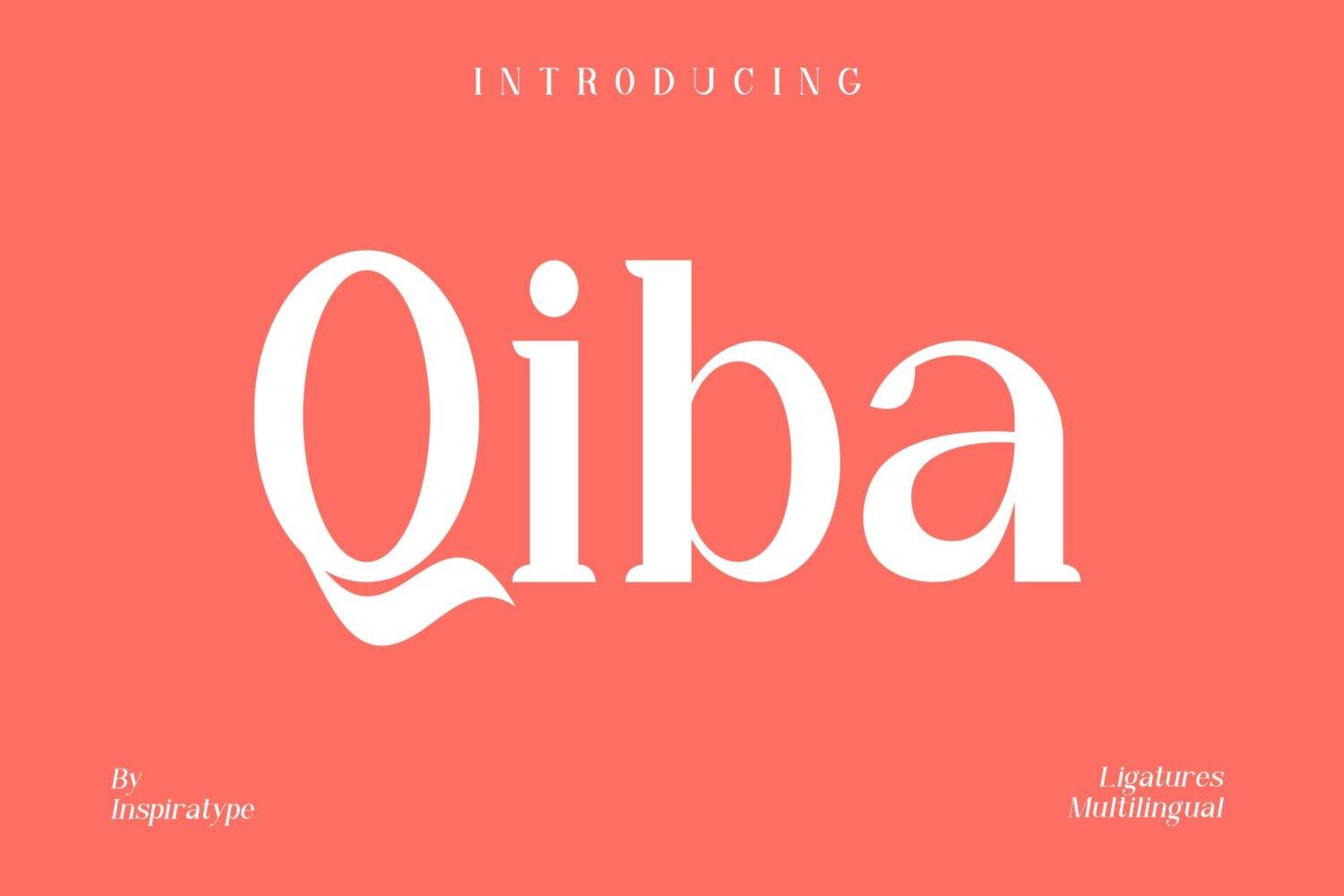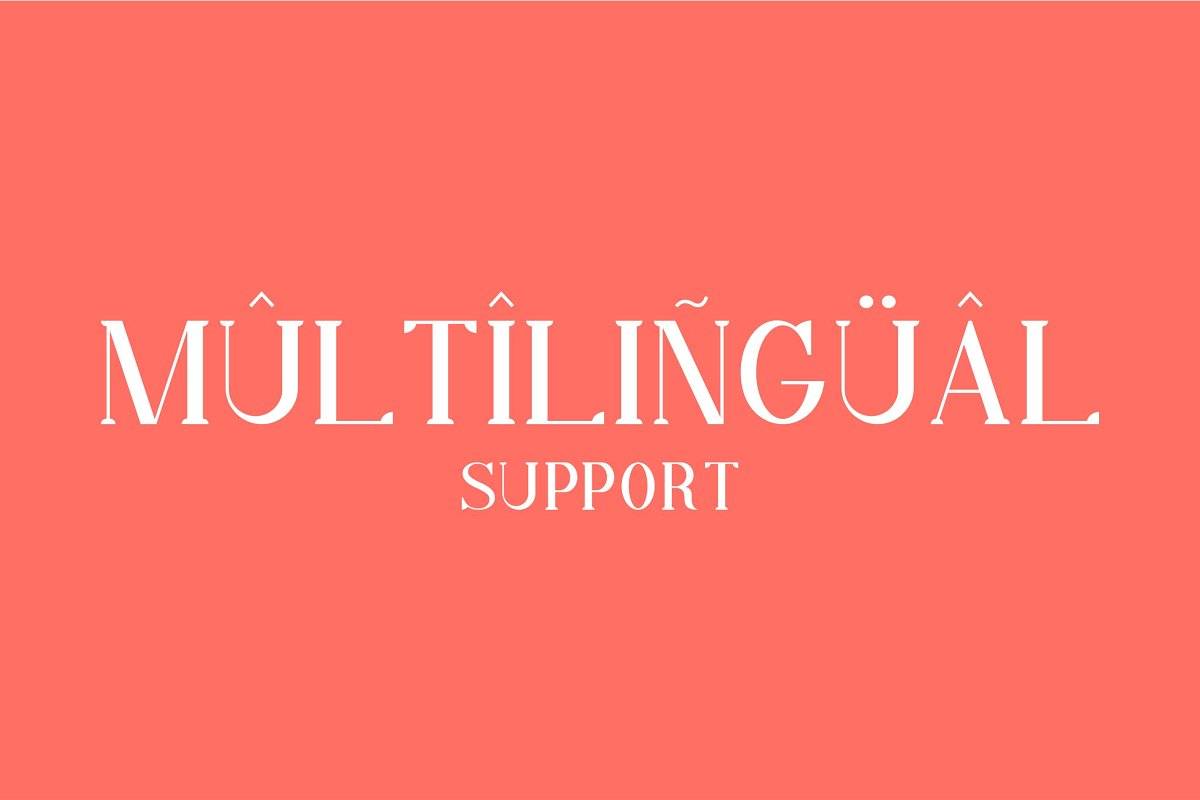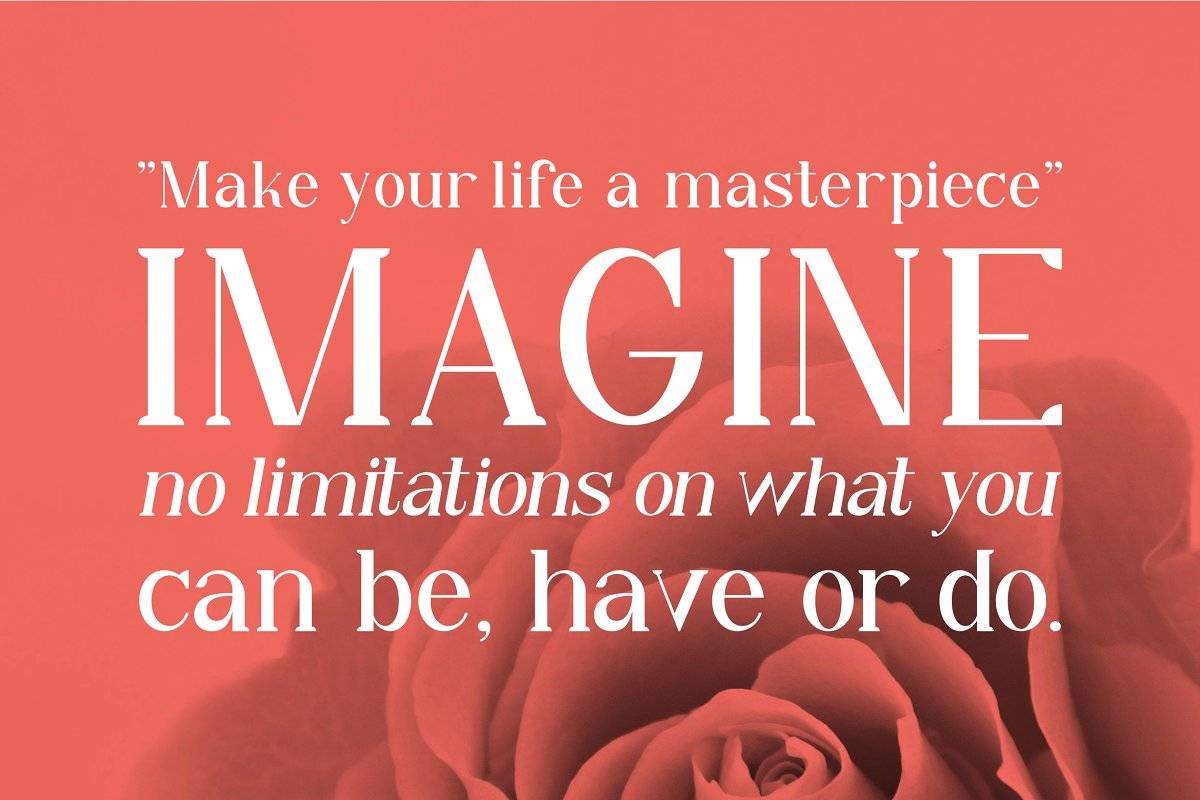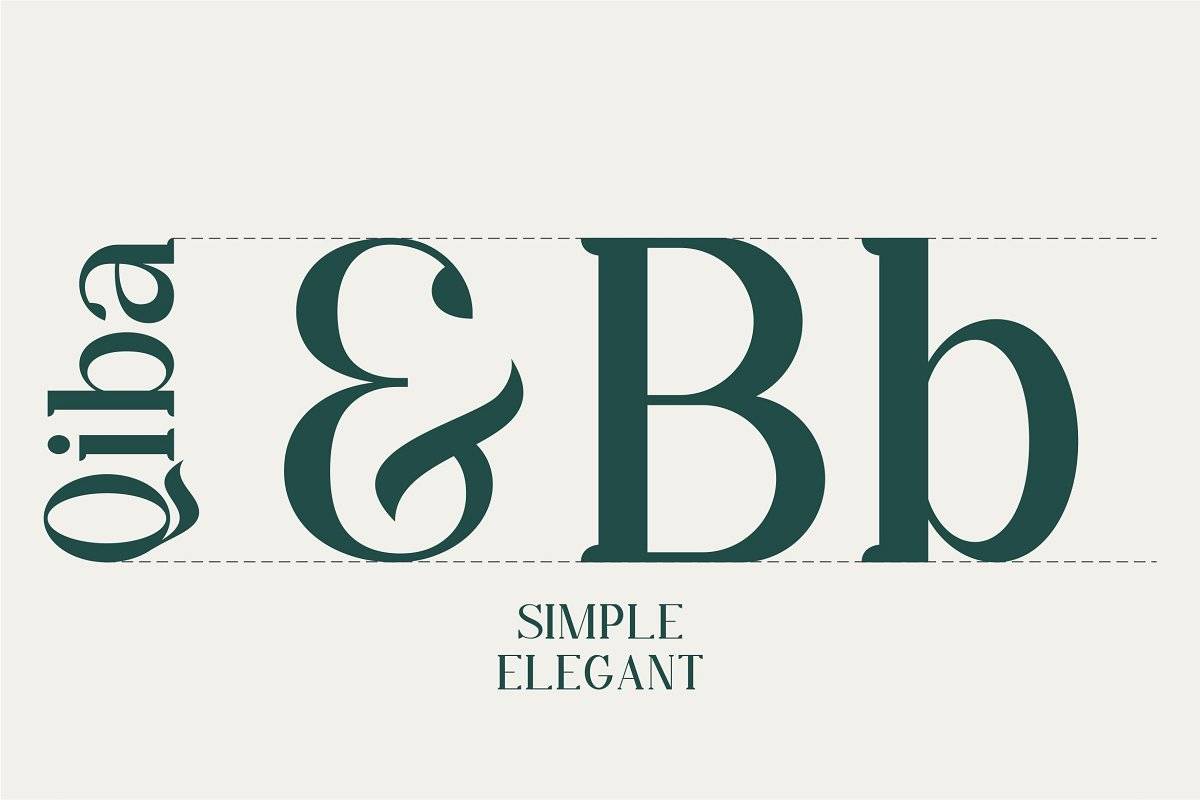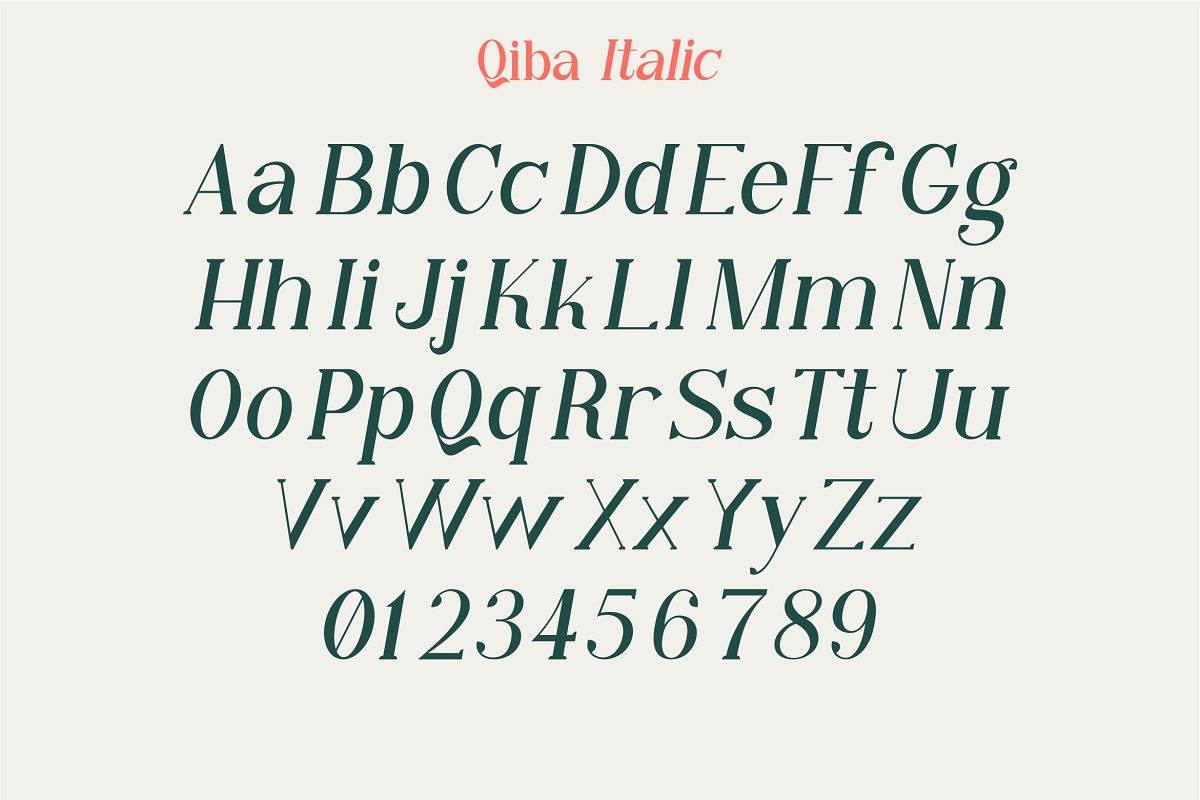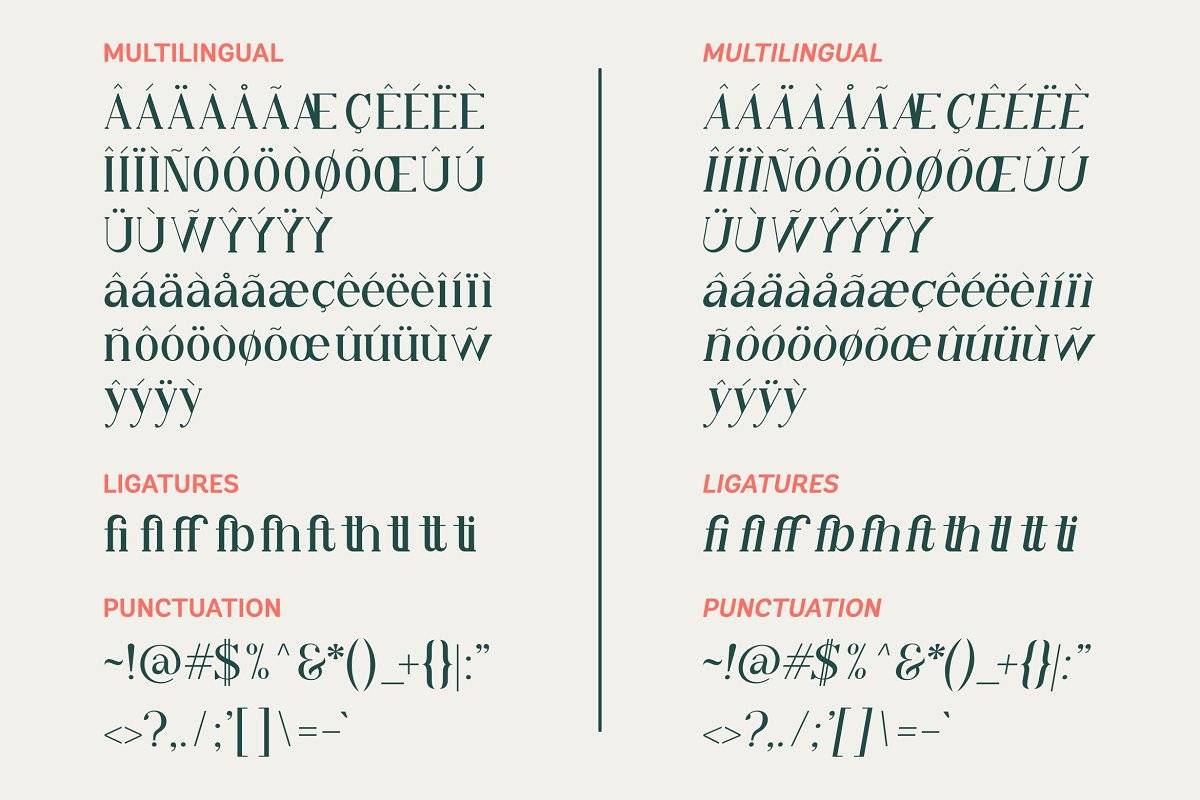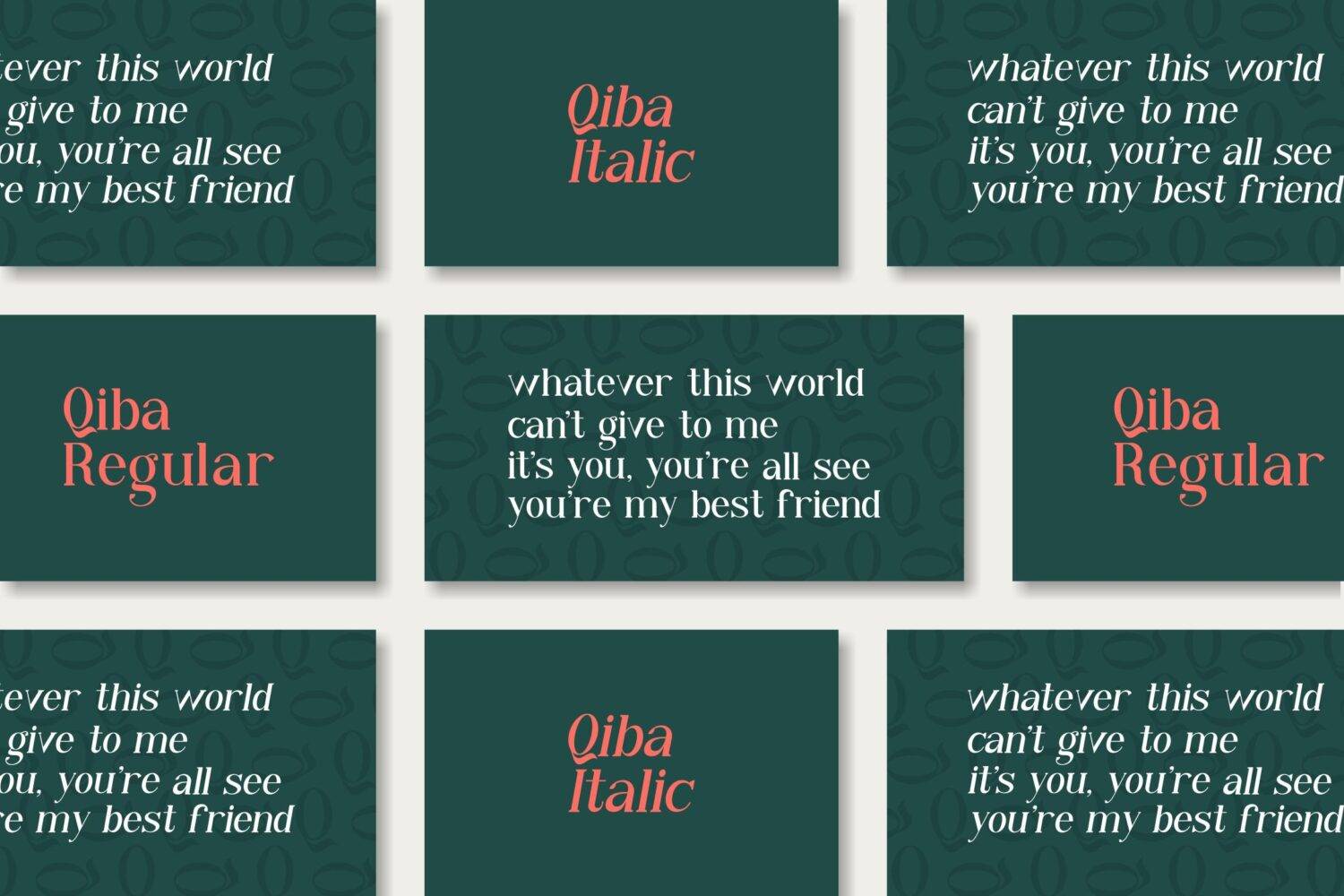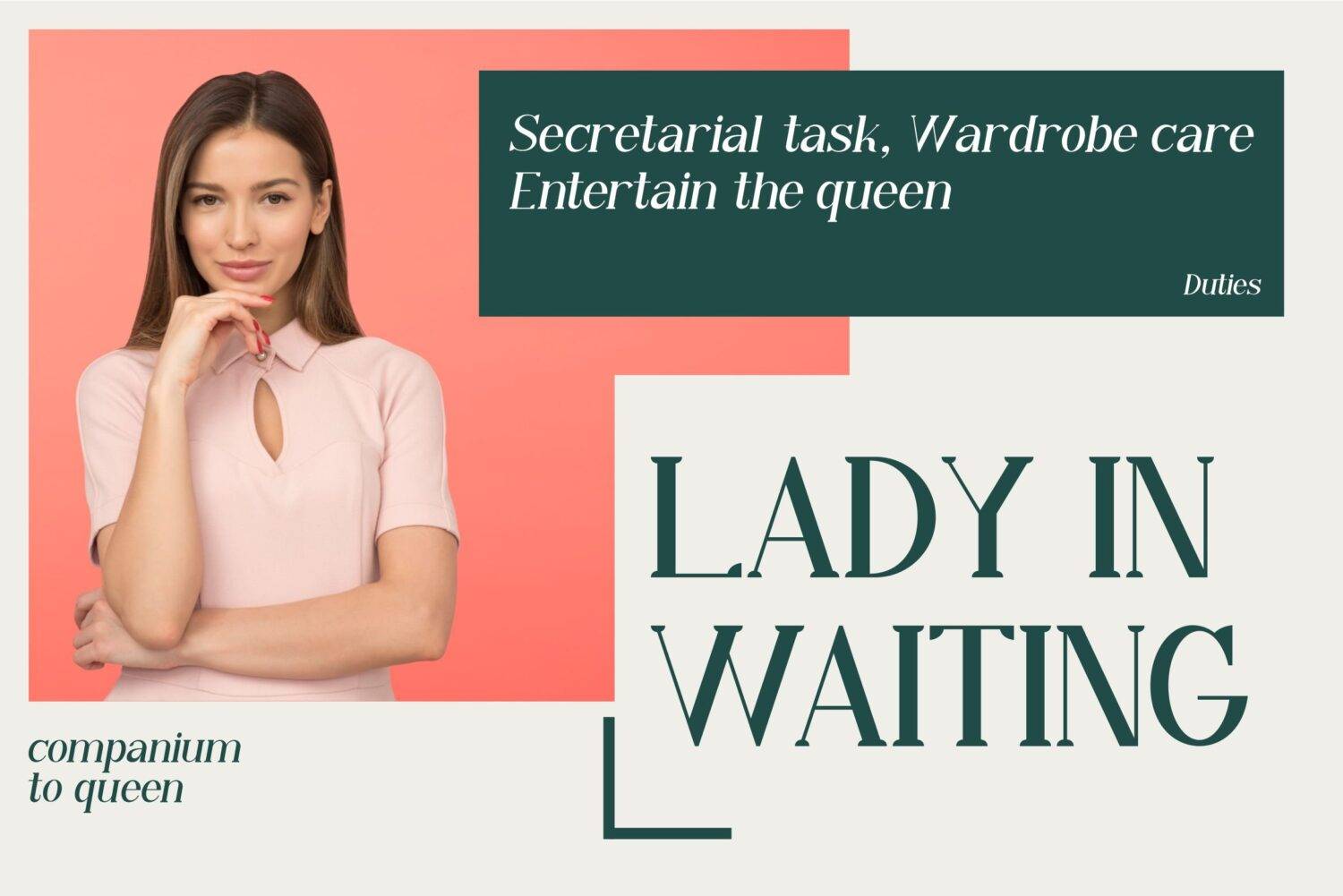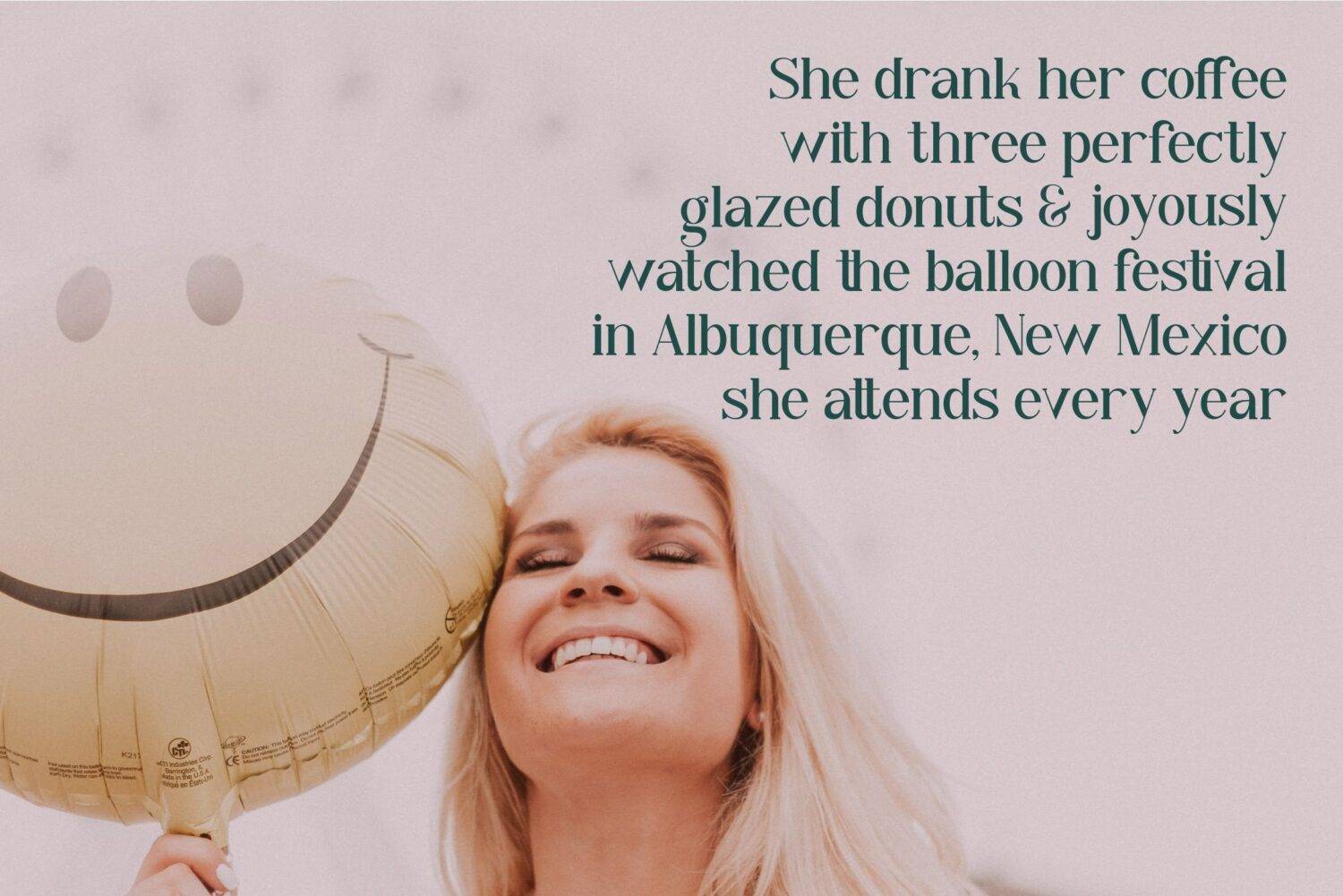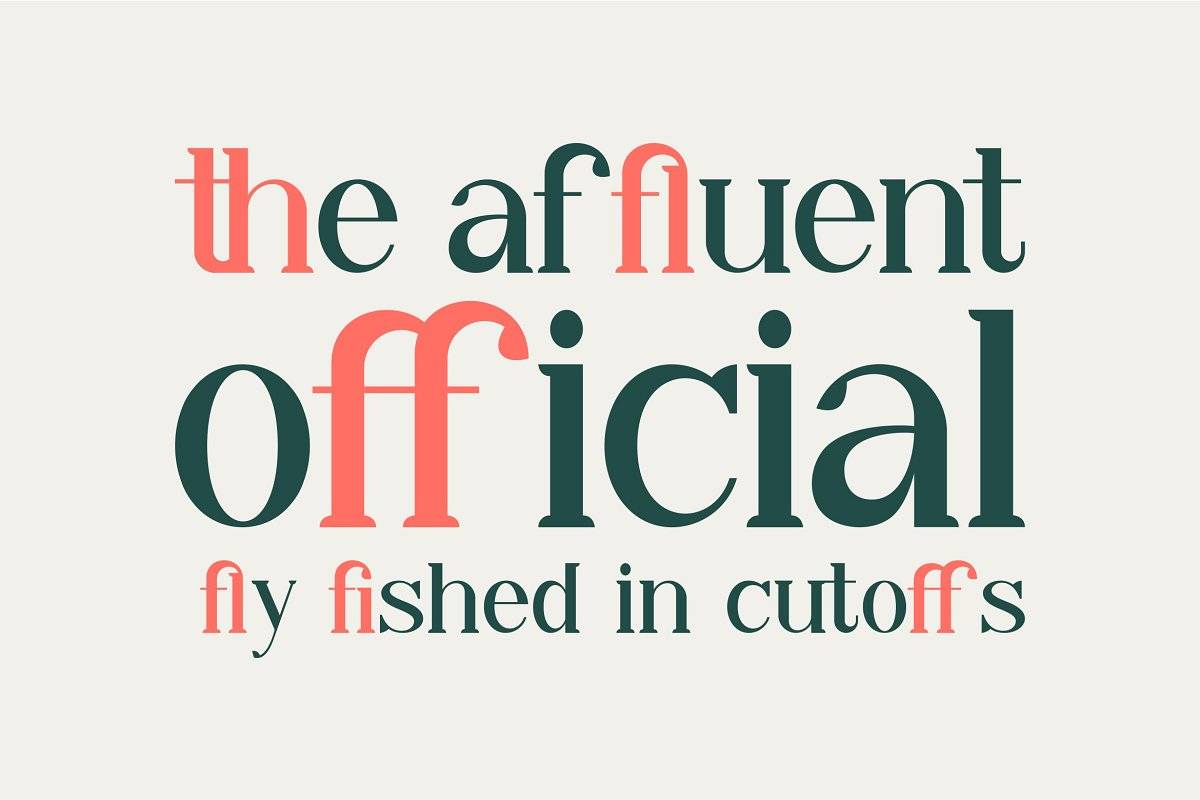
Qiba Simple Serif is an elegant serif font featuring high contrast strokes and slender, bracketed serifs that lend a refined and classic feel. With its medium weight and clear, legible letterforms—including double-story ‘a’ and ‘g’—it suits sophisticated branding, editorial layouts, and stylish headlines where a touch of timeless grace is desired. This font works well in luxury packaging, fashion, and print projects that benefit from its balanced blend of traditional charm and modern clarity.
Qiba Simple Serif Font
About Qiba Simple Serif Font
| Font family | Qiba Simple Serif Font |
| Designer | inspiratype |